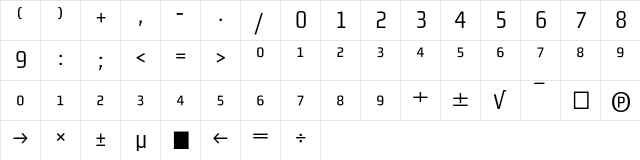
MorganSansCond RegularFigures
Design Context for MorganSansCond Typeface
MorganSansCond offers clean, dependable letterforms without strong stylistic allegiance, making it a practical choice for designers who need flexibility. Its narrow stance lets it pack a punch even in space-constrained designs.